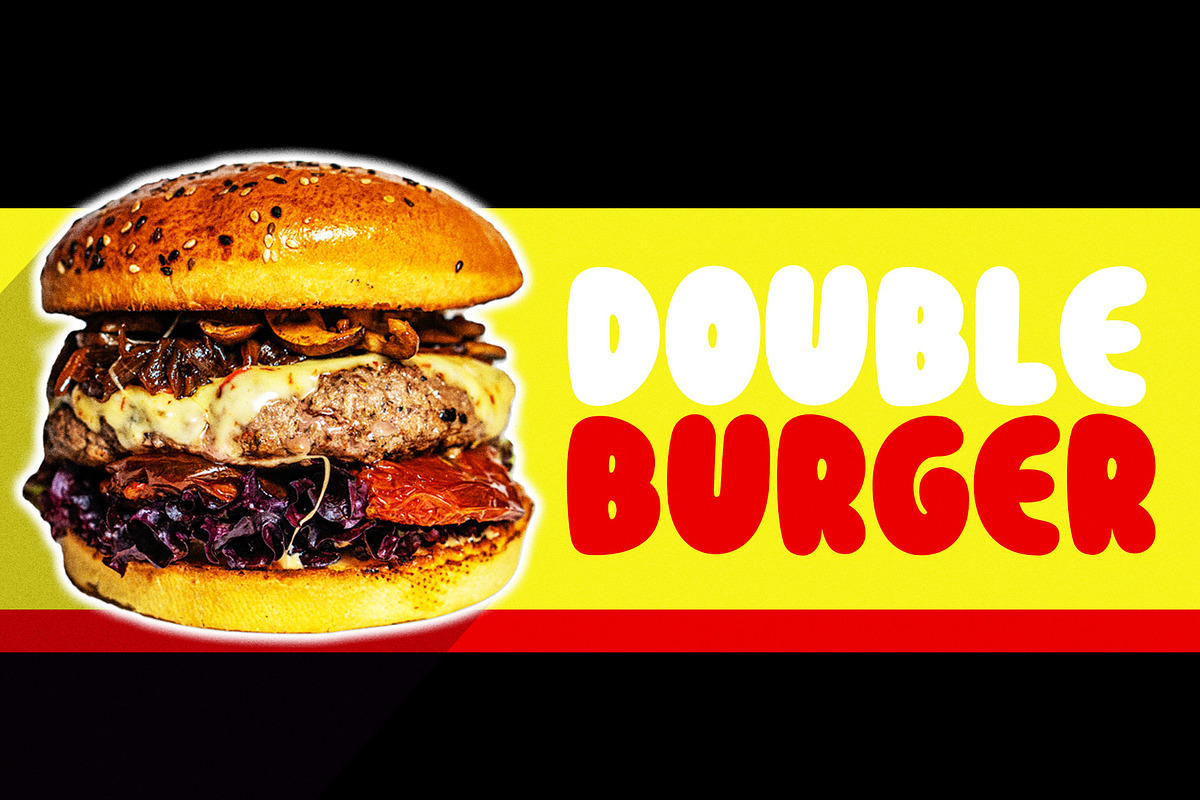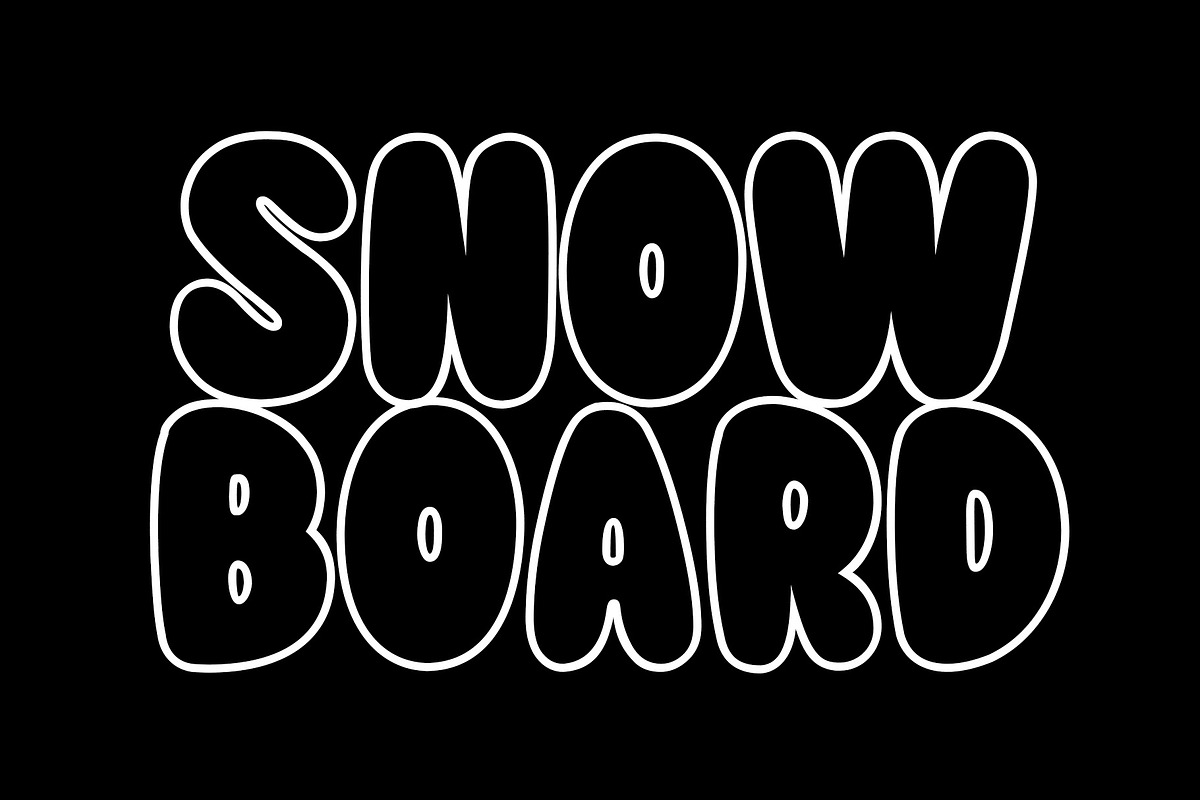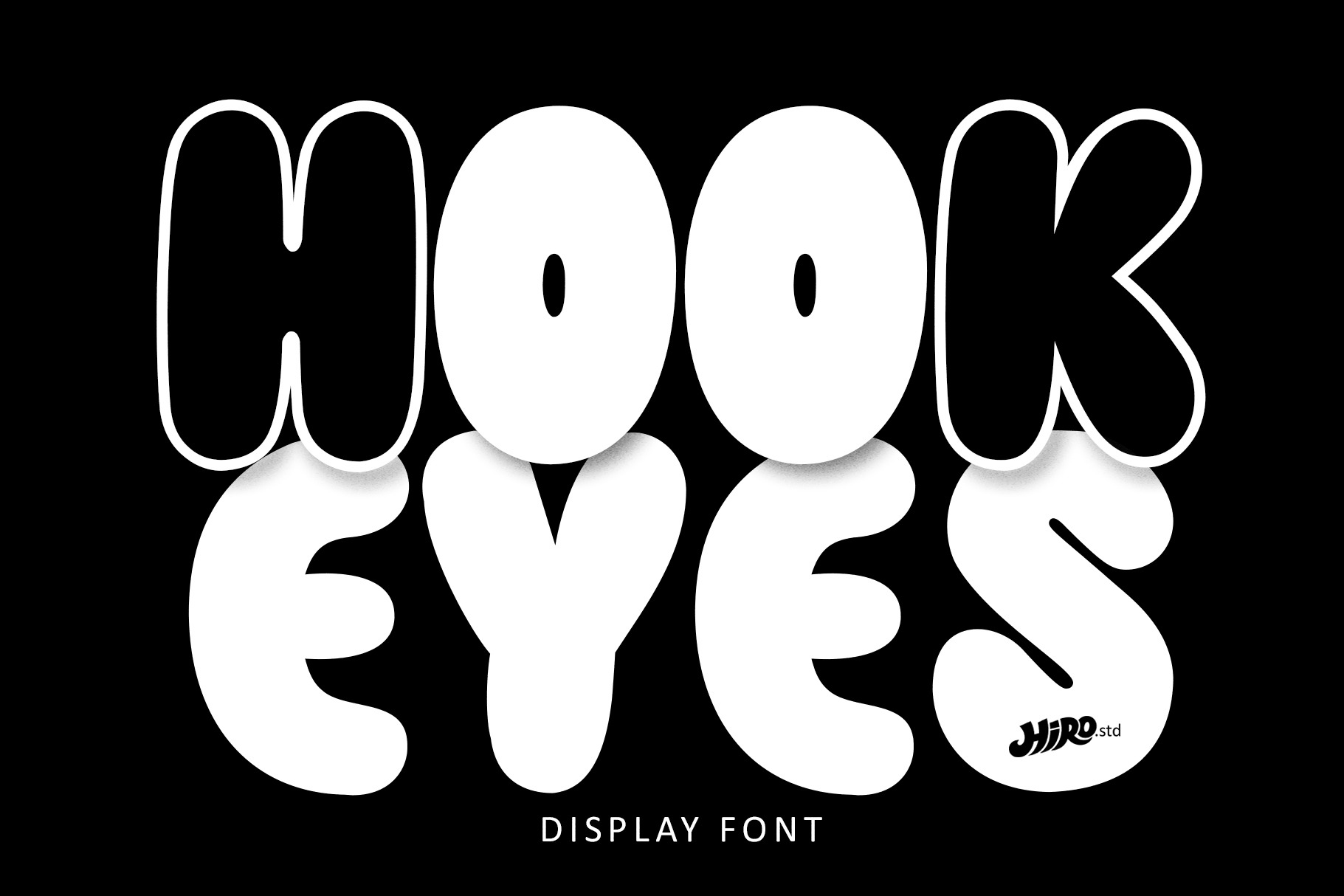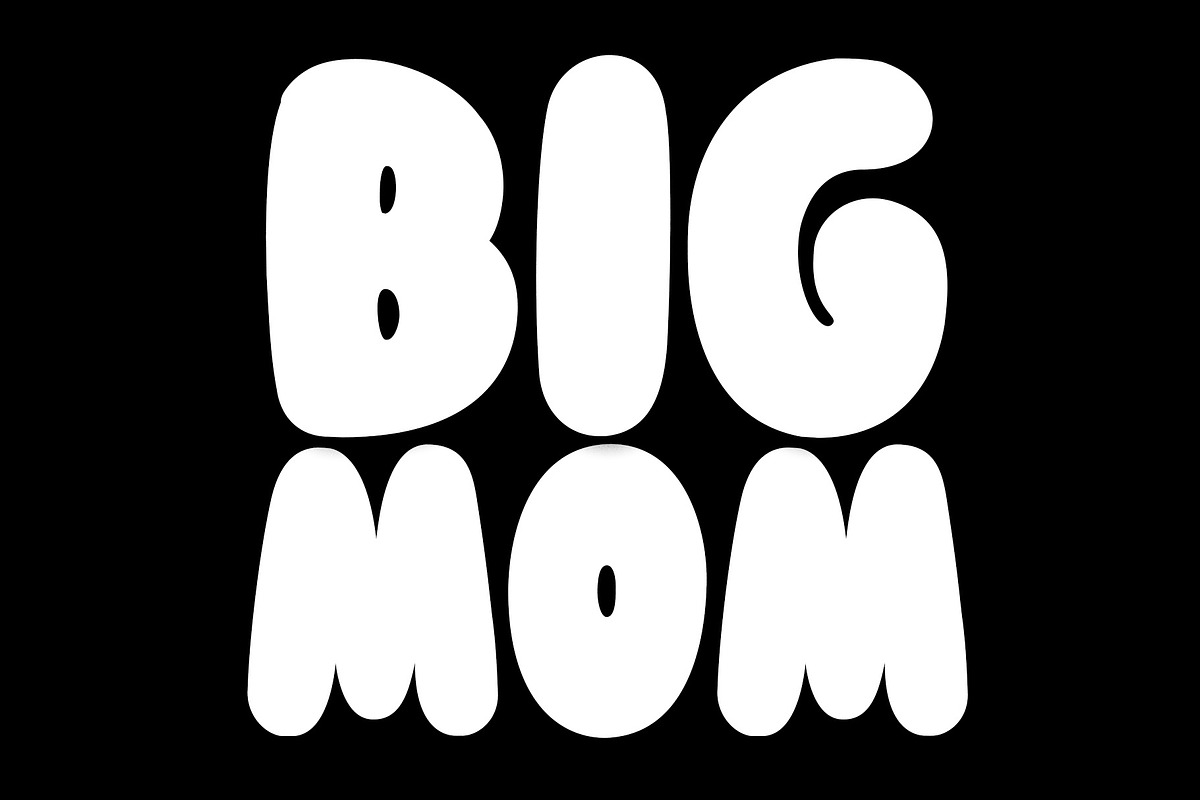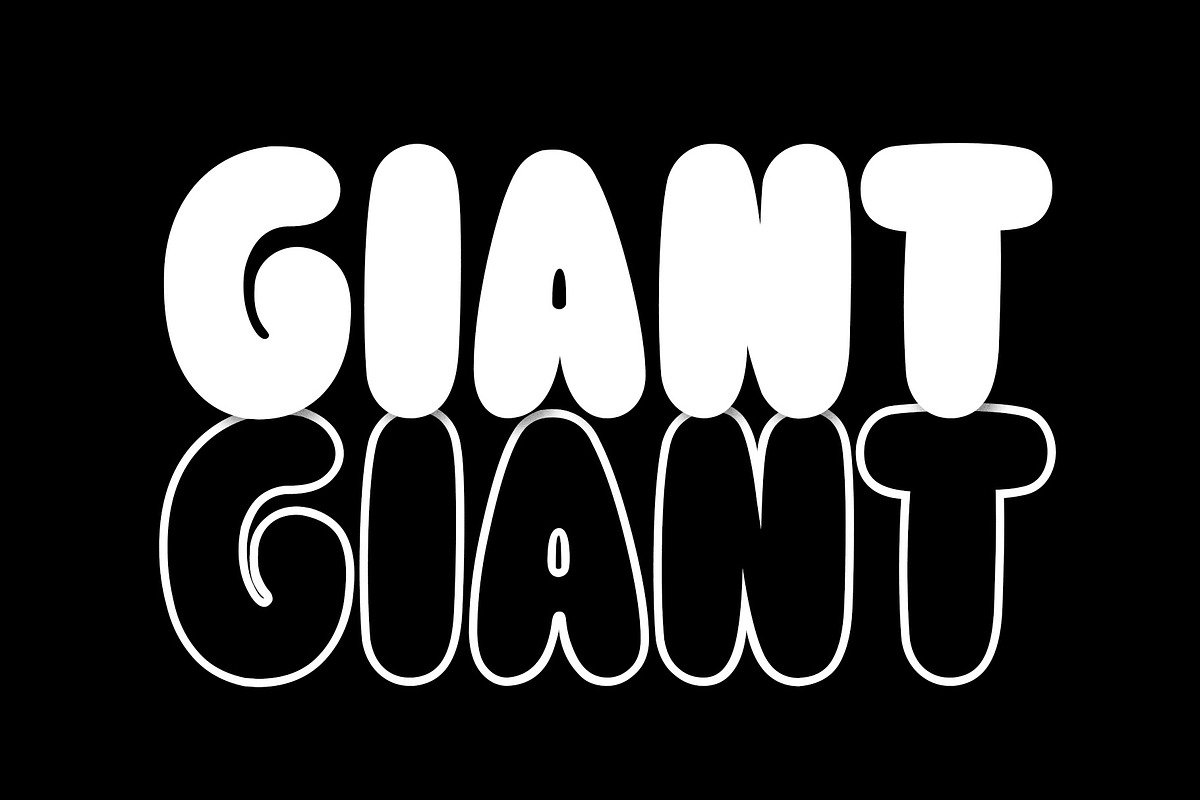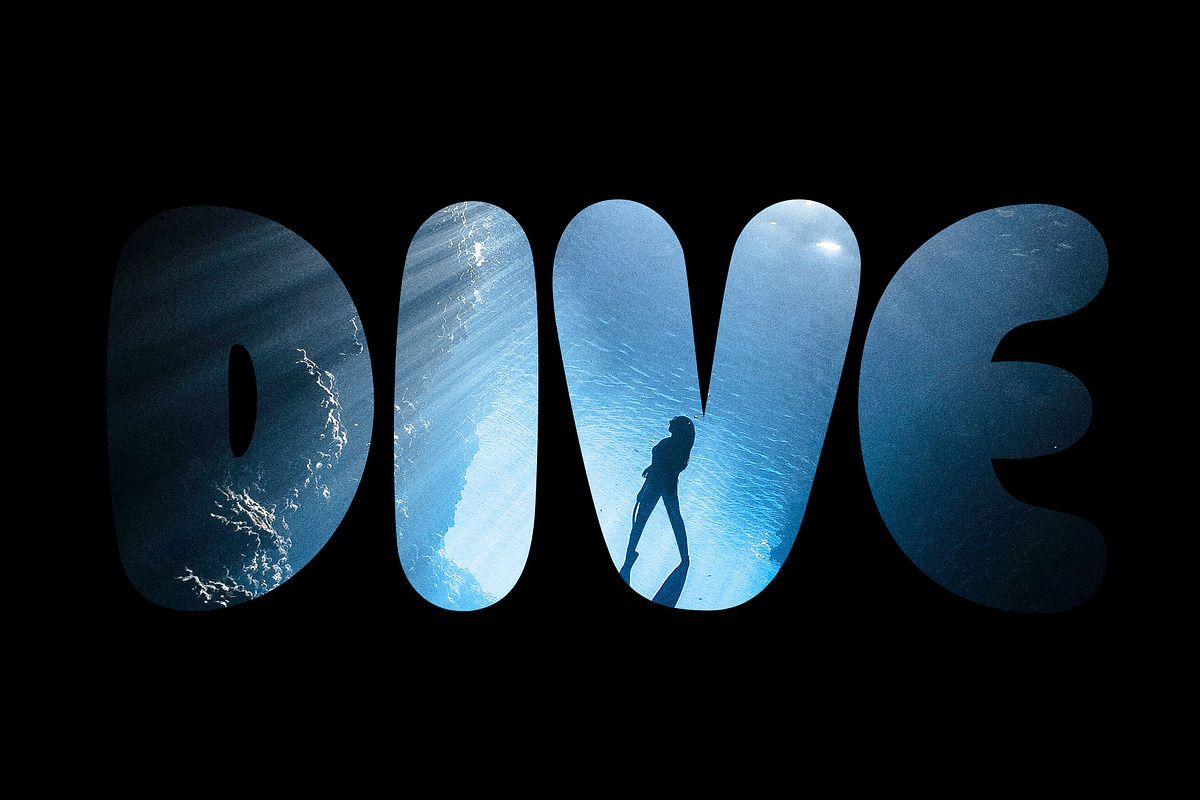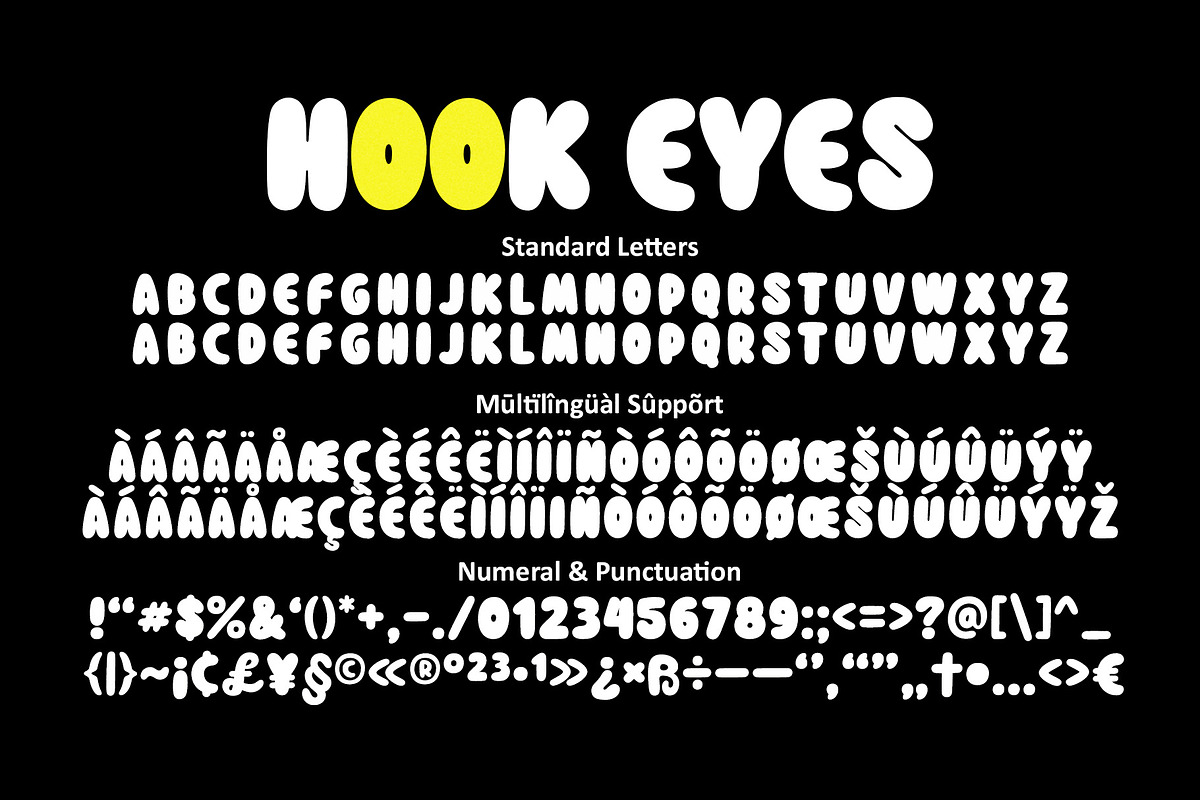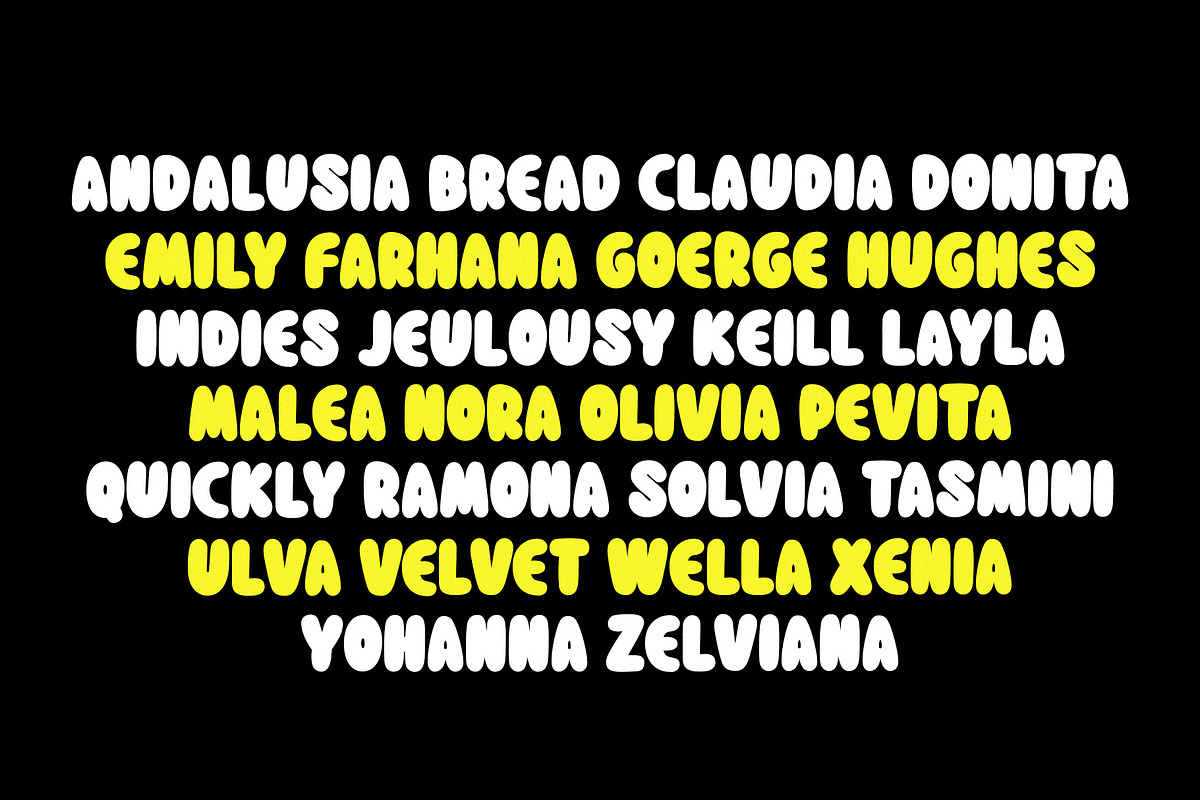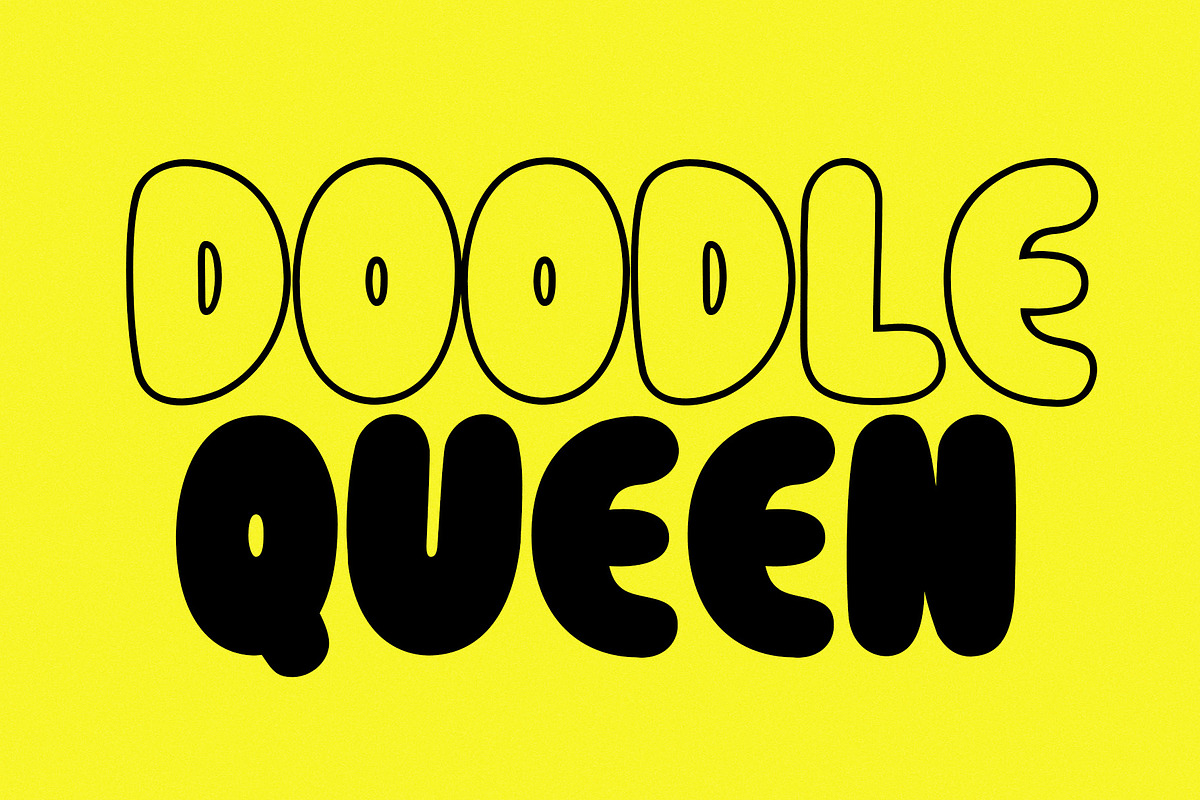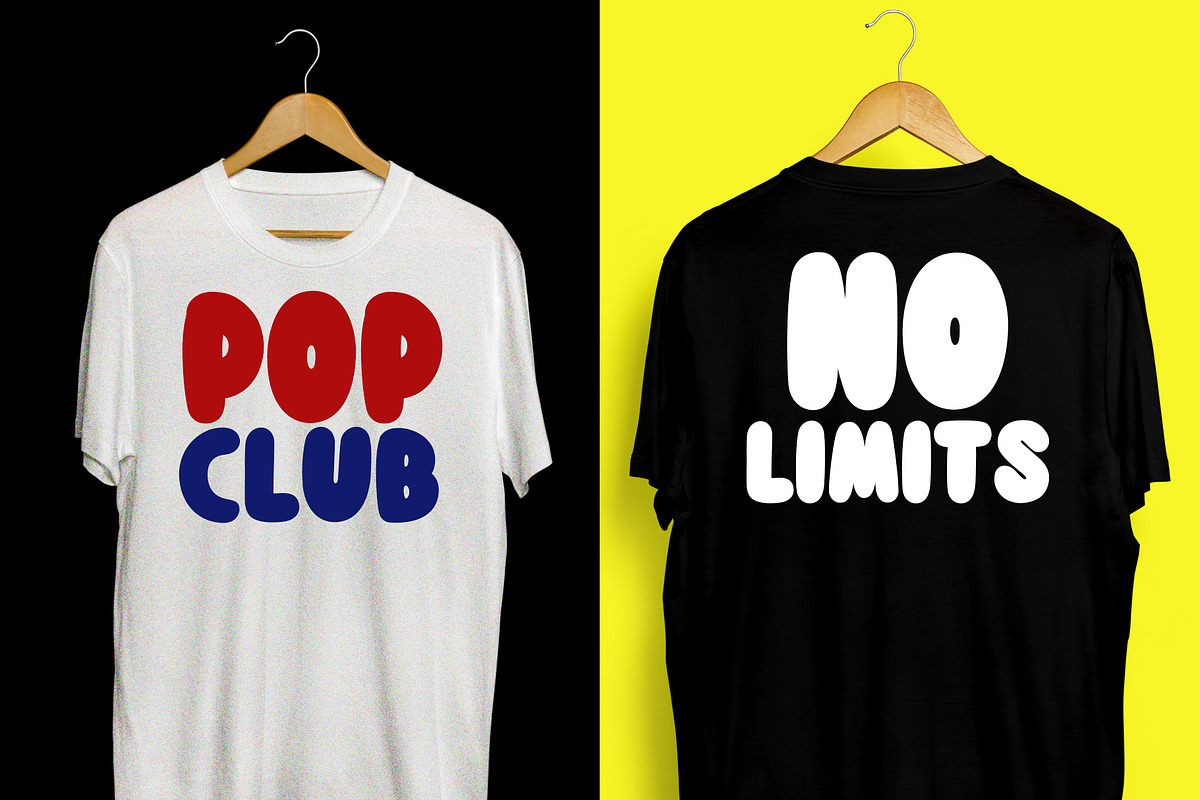
Hook Eyes - Display Font
Hook Eyes is Display Font
This font describes about funny, dynamic, selling, sale, humanist, easy going, and easy to use.
USE Hook Eyes works great in titles, sale campaign, product packaging, brand, poster, print, etc.